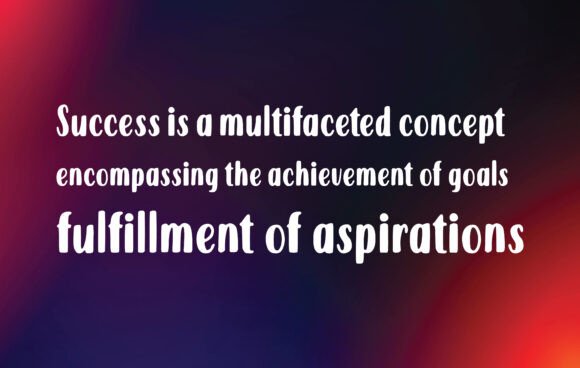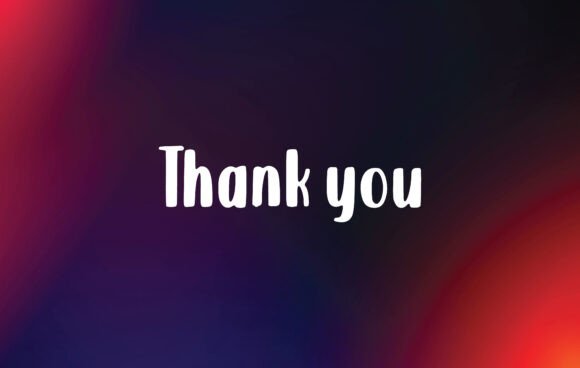
Unlock Your Creativity with Emmanuel Font
Have you ever found yourself in the middle of a creative session, scribbling down ideas on a piece of paper, only to realize that the perfect font was missing to bring your vision to life? I’m sure you have. As designers, we’ve all been there. That’s why we’re excited to introduce you to the Emmanuel Font, a beautiful and elegant handwritten font that can elevate your creative ideas to new heights.
The Emmanuel Font is perfect for designers who want to create stunning logos, captivating branding, and inspiring quotes. Its unique charm and character make it an ideal choice for any project that requires a touch of elegance and sophistication. With the Emmanuel Font, you’ll be able to convey your message in a way that resonates with your audience and leaves a lasting impression.
Emmanuel Font Key Features
- Font Family: A high-quality sans-serif font designed for digital use.
- Character Set: Supports a wide range of languages, including Latin, Cyrillic, and Greek.
- Unique Characteristics: Features a clean and modern design, with subtle rounded edges and a high x-height, making it highly readable and versatile.
Designer Review: Emmanuel Font
Emmanuel Font is a beautiful sans-serif font that exudes elegance and sophistication. It’s perfect for creating a professional and modern look for your designs. ✨ I love how it looks on both digital and print mediums, and it’s highly versatile.
- Legibility: Emmanuel Font is incredibly easy to read, even at smaller font sizes.
- Modern feel: It has a sleek, contemporary look that’s perfect for modern designs.
- Professional tone: It’s ideal for creating a professional and polished look for your designs.
While Emmanuel Font is an excellent choice, there are a few limitations to consider: ⚠️ It may not be the best choice for designs that require a lot of emphasis on boldness, as it’s a relatively light font.
Additionally, it may not be suitable for designs that require a lot of texture or visual interest, as it’s a relatively simple font.
In conclusion, Emmanuel Font is a solid choice for designers looking for a modern, professional, and elegant font. While it may have some limitations, it’s a great option for a wide range of designs, and it’s definitely worth considering for your next project.
Practical Application Guide for Emmanuel Font
Tip: Use Emmanuel Font for headings or titles to add a touch of elegance and sophistication to your design.
Tip: Use Emmanuel Font for custom typography projects or to add a unique touch to your illustrations.
Tip: Use Emmanuel Font for presentations or documents that require a professional and modern look.
Emmanuel Font is suitable for:
- Business cards and marketing materials
- Typography projects and illustrations
- Presentations and documents that require a professional look